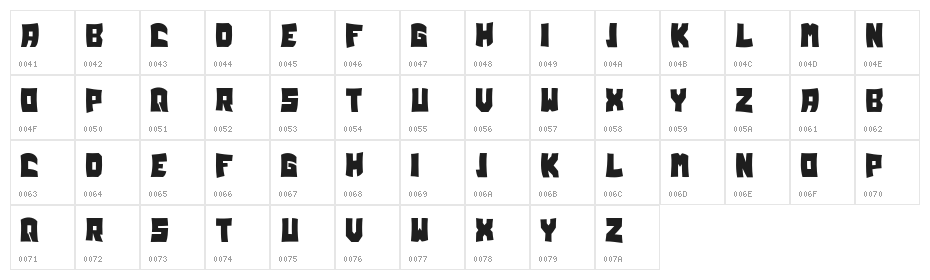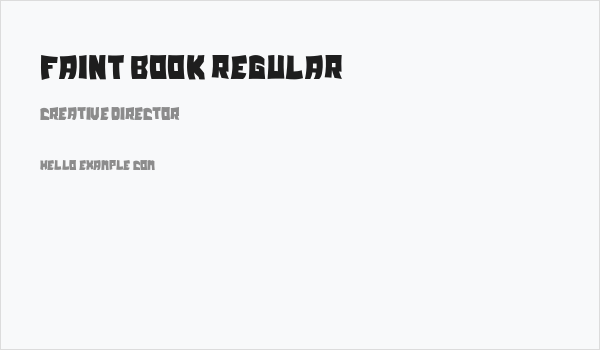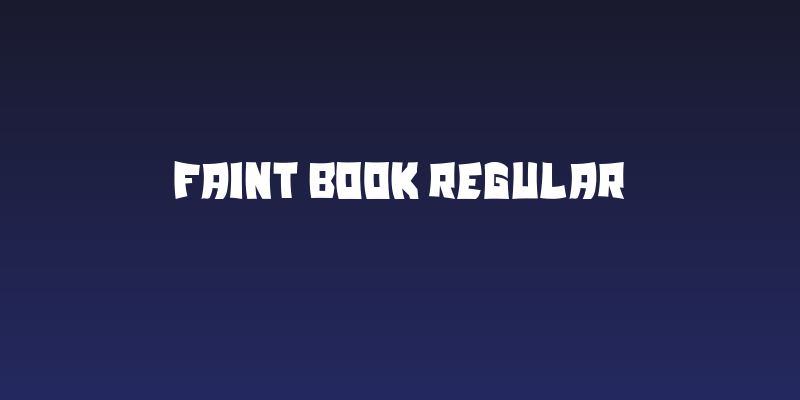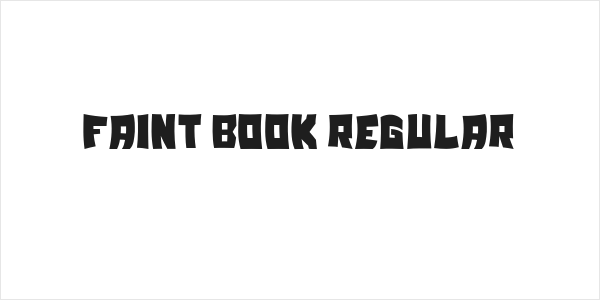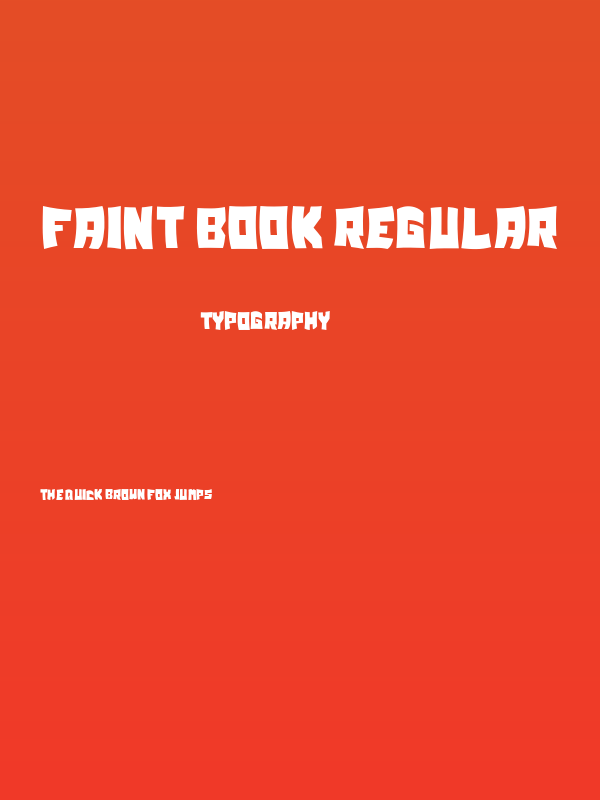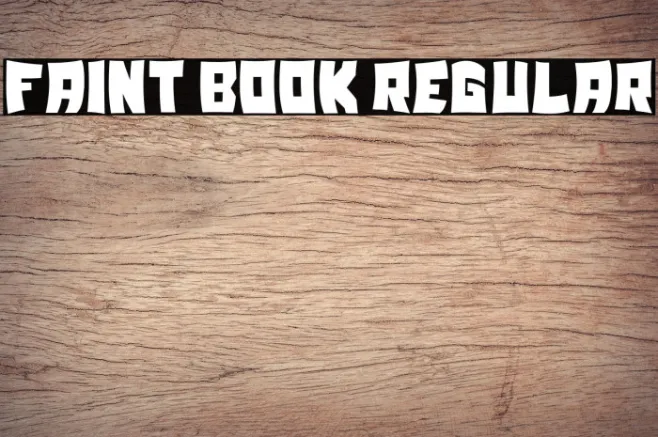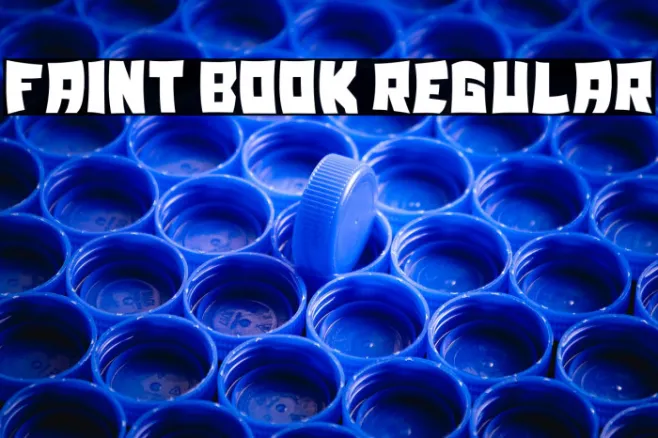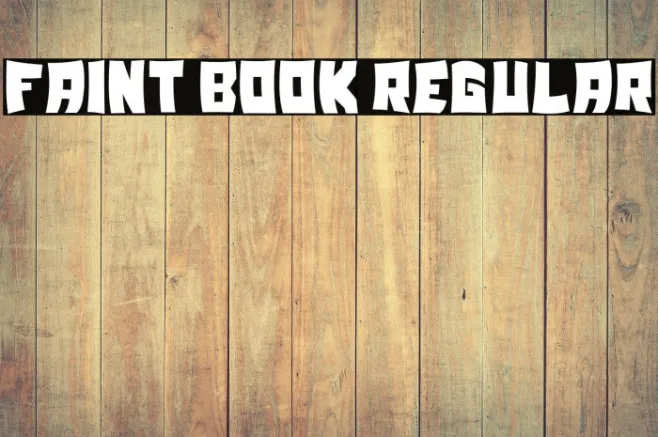
Faint Book Regular Font
Faint Book Regular Description
This font features a bold and dynamic style with a strong presence. The characters are designed with sharp, angular edges and a slightly irregular form, giving them a unique and edgy appearance. The uppercase letters are particularly striking, with a blocky and robust structure that commands attention. The font's design is reminiscent of graffiti or street art, making it ideal for projects that require a bold and unconventional look. The characters are tightly spaced, enhancing the compact and impactful nature of the font. This style is well-suited for creative and artistic projects where a strong visual statement is desired.
| Overall Style | Modern, Edgy |
| Proposed Projects | Ideal for posters, album covers, streetwear branding, and urban-themed designs. |